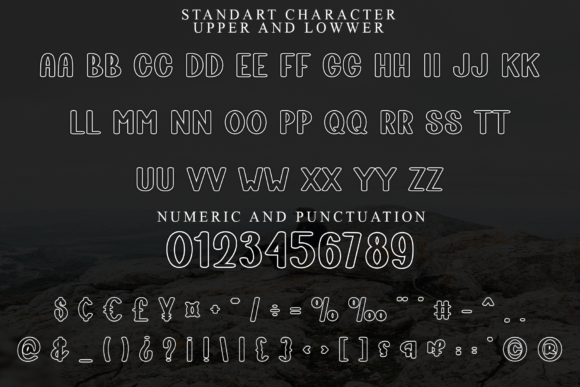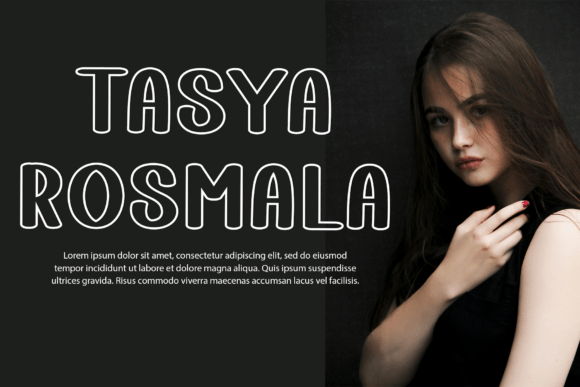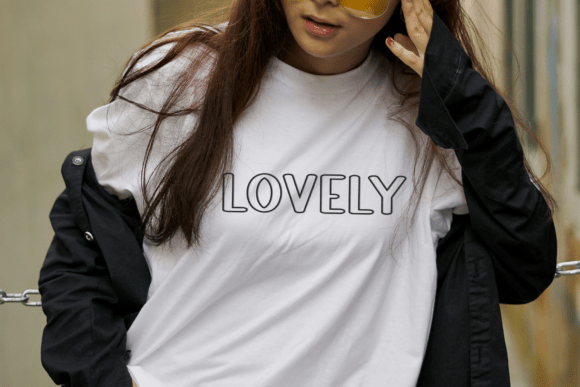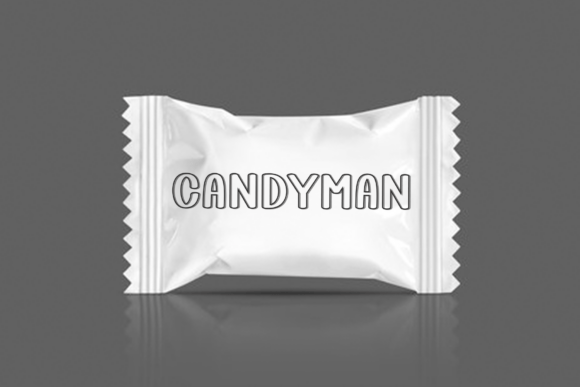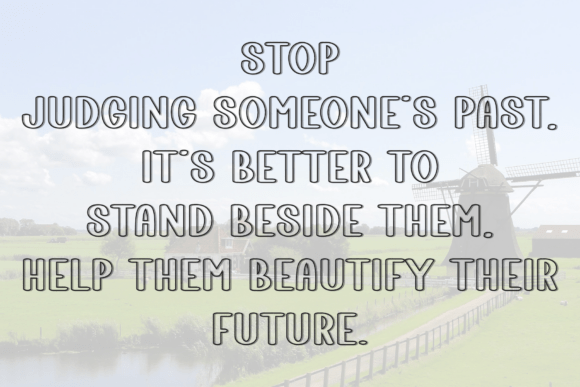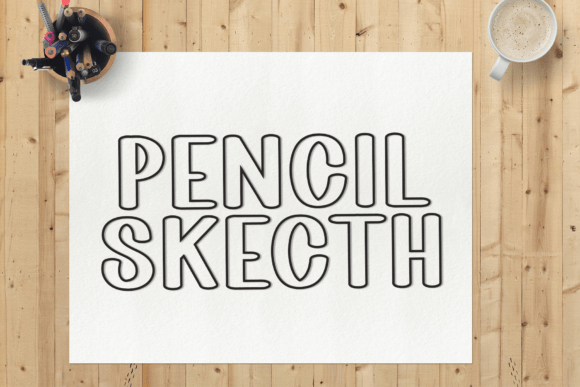
Discover the Beauty of Design Thinking Font: Elevate Your Creative Projects
In the world of design, typography plays a crucial role in conveying messages, evoking emotions, and creating lasting impressions. Among the numerous fonts available, Design Thinking Font stands out for its unique, soft, and eye-catching appearance. This beautifully crafted font is designed to add a special touch to your creative projects, making it a versatile and meaningful choice for designers and crafters alike.
The Distinctive Characteristics of Design Thinking Font
Design Thinking Font boasts distinctive strokes that set it apart from other fonts. Its soft and unique touch gives it a special character, making it perfect for a wide range of applications. Whether you’re working on design projects, crafts, or other creative endeavors, this font is sure to enhance your work and make it more appealing to your audience.
Key Features of Design Thinking Font
- Unique and Soft Touch: Design Thinking Font features a one-of-a-kind design with a soft, rounded aesthetic that adds a touch of elegance to your projects.
- Distinctive Strokes: The font’s distinctive strokes give it a special character, making it stand out from other fonts and adding a creative flair to your work.
- Versatile and Meaningful: With its unique design, Design Thinking Font is perfect for a wide range of applications, from design projects to crafts and other creative works.
- Natural Font Style: Design Thinking Font features a natural, organic design that is ideal for creating products that appeal to a wide range of audiences.
Design Thinking Font is a perfect choice for designers and crafters looking to add a creative touch to their projects. With its unique and soft touch, this font is ideal for:
- Design Projects: Use Design Thinking Font to create stunning designs that capture the attention of your audience.
- Crafts: Add a personal touch to your crafts with this beautiful font, perfect for creating handmade products that stand out.
- Creative Works: Design Thinking Font is perfect for any creative project, from brochures and posters to websites and social media graphics.
Benefits of Using Design Thinking Font
By incorporating Design Thinking Font into your design projects, you can:
- Enhance Your Designs: Add a creative touch to your designs and make them more appealing to your audience.
- Stand Out from the Crowd: With its unique design, Design Thinking Font helps your projects stand out from the competition.
- Increase Engagement: The font’s soft and eye-catching appearance is sure to engage your audience and leave a lasting impression.
Design Thinking Font is a beautiful and versatile font designed to elevate your creative projects. With its unique and soft touch, distinctive strokes, and compatibility with various applications, this font is perfect for designers and crafters alike. Whether you’re working on design projects, crafts, or other creative endeavors, Design Thinking Font is sure to enhance your work and make it more appealing to your audience. So why wait? Discover the beauty of Design Thinking Font and take your creative projects to the next level.